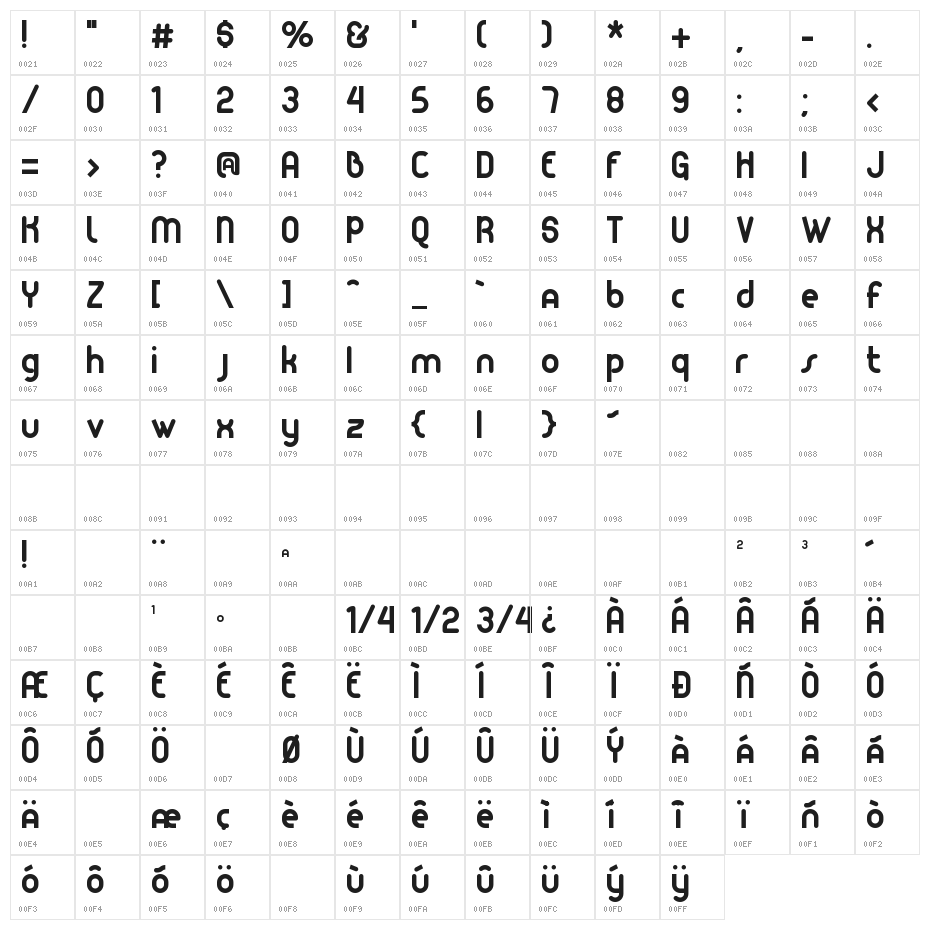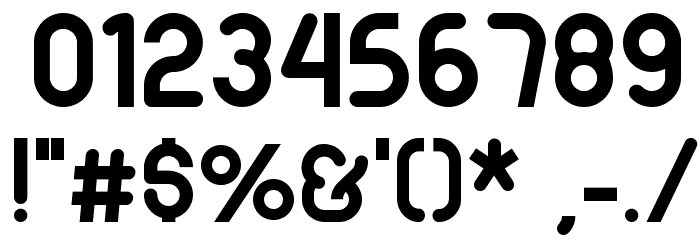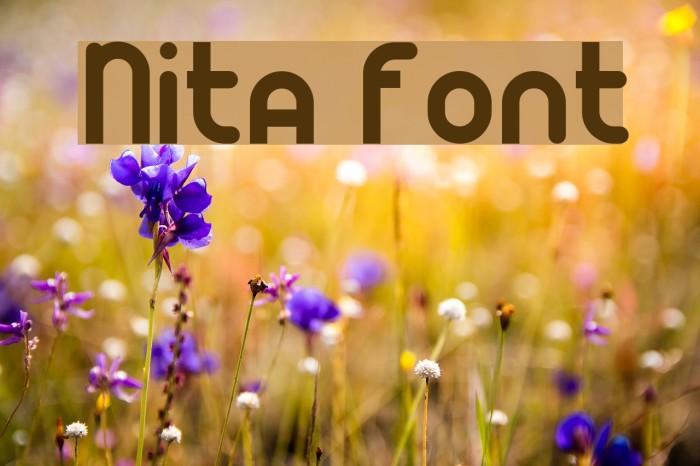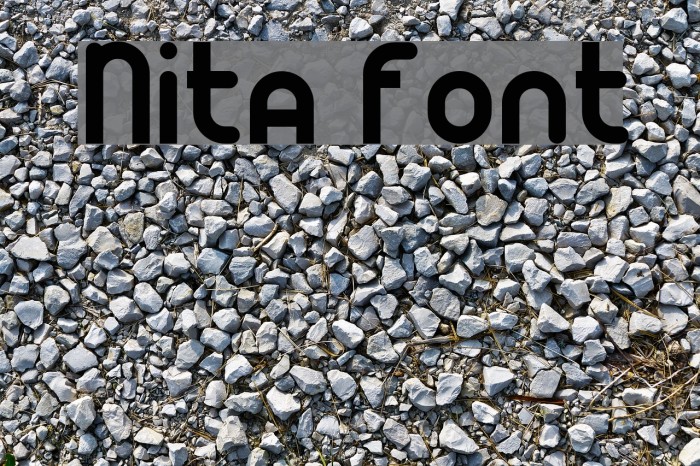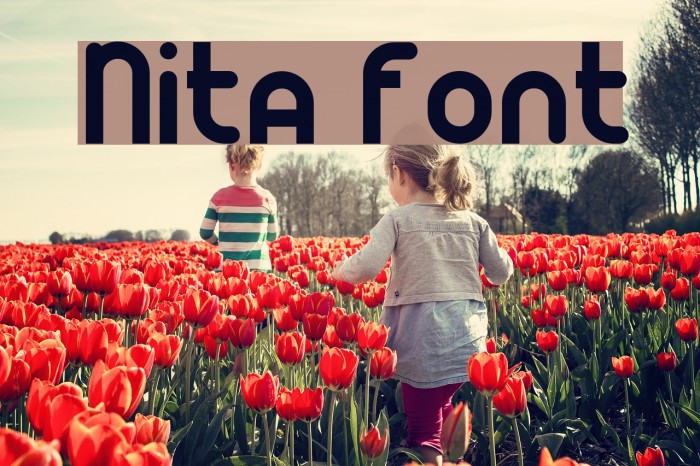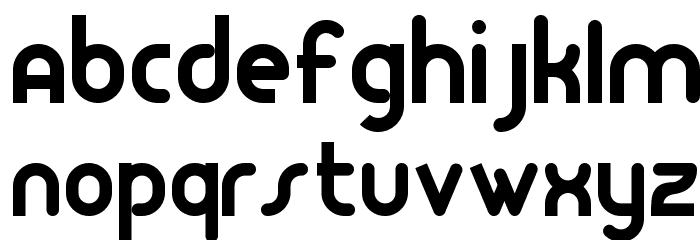
Nita Font
Nita Description
This font features a modern, rounded style with a playful and approachable appearance. The characters are bold and have a uniform stroke width, giving them a clean and consistent look. The rounded edges soften the overall feel, making it suitable for friendly and informal designs. The uppercase and lowercase letters maintain a similar width, providing a harmonious balance. Numbers and special characters are designed with the same rounded aesthetic, ensuring cohesion across all elements. This font is versatile and can be used in various design contexts where a contemporary and inviting look is desired.